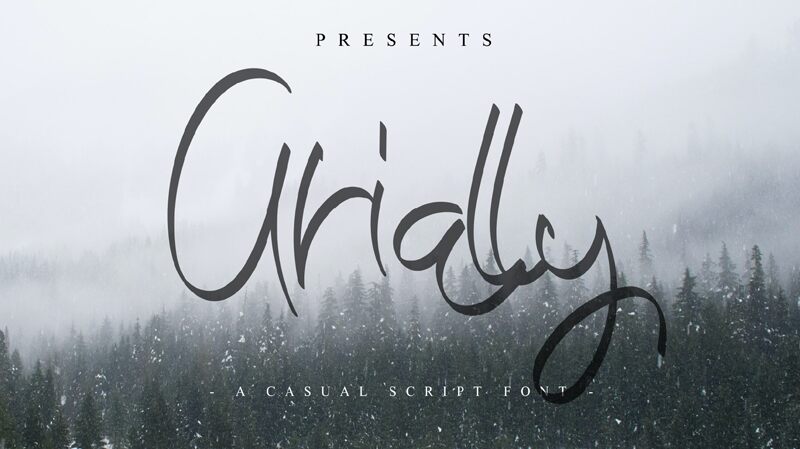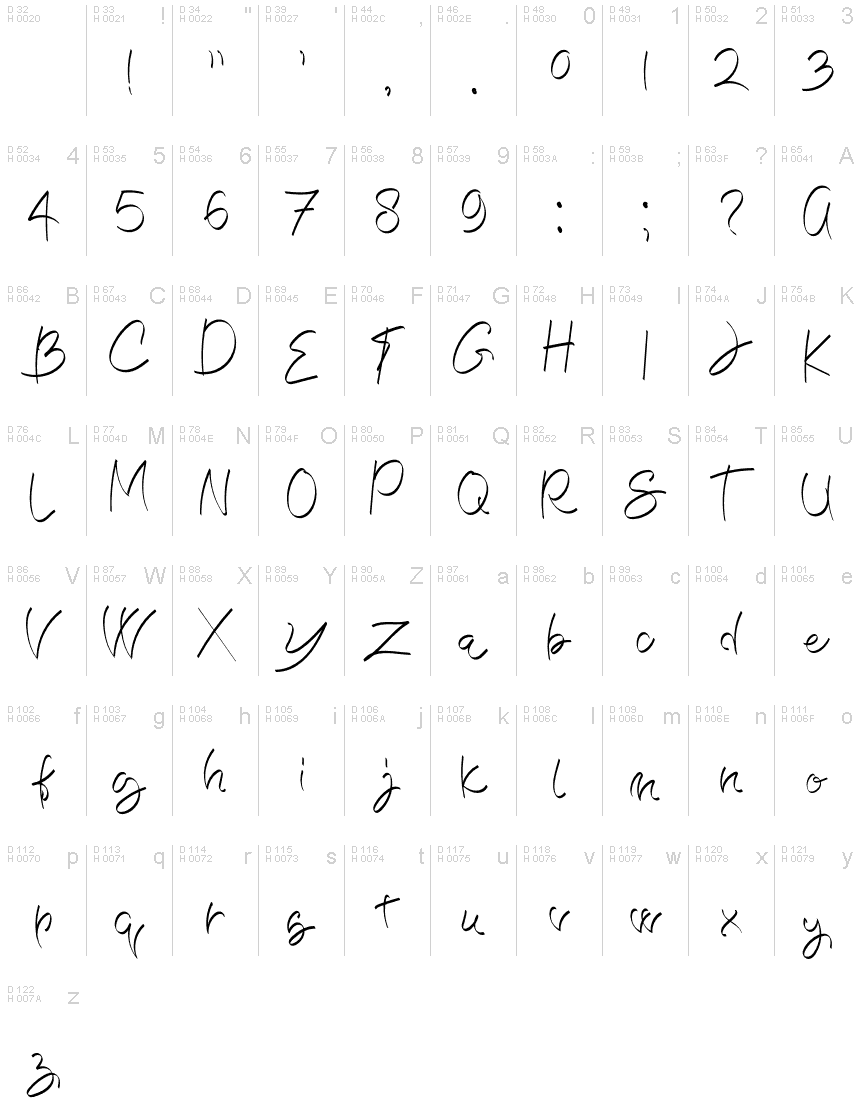
AriallyRegular
Arially is handwritten casual handwritten calligraphy font designed by Arliyan Creative which looks bold and elegant at the same time.
Arially is perfect for any branding projects including but not limited to logo, social media posts, advertisements, product packaging, product designs, label, photography,
wedding invitation, stationery and any projects that need handwriting taste.